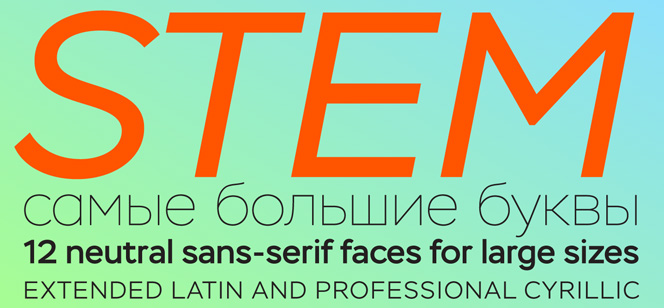
Stem font
Stem font is a contemporary Sans Serif font family characteristic with its distinctive geometrical shapes. There is a very interesting concept behind its creation as it is designed to be a solution to an old problem – the fact that many sans serifs do not look equally good in the large sizes and in a body text. The Stem designers, having carefully analysed the nature of the problem and the reasons behind its existence, offer us a very bold solution – an optical sized Sans Serif. Their plans include the development of three family branches – Display – for large sizes, Text – for prolonged reading and Caption – for the smaller sizes. In this manner, the users will be provided with the perfect typeface for any purpose.
The first part of the family – Stem Display, is specially designed to work in the largest points sizes. As you can imagine, the legibility is great for use in headlines, titles, posters, advertising, inscriptions, etc. Display comes in 12 weights – Stem Hairline, Stem Thin, Stem Extra Light, Stem Light, Stem, Stem Medium, Stem Bold with the last five having there respective true Italics. Many extras are included like stylistic alternates, superiors and inferiors, true small caps, different kinds of digits as well as extensive language support for Latin based languages. There is also a special feature that deserves a special mention – the very carefully and professionally designed Cyrillic glyphs.
Stem font family is a brainchild of a triumvirate of very talented Russian type designers – Alexandra Korolkova, Maria Selezeneva and Isabella Chaeva and is released by one of the most famous East European type foundries – ParaType. We have already seen the marvelous results of the co-operation between Alexandra and Maria (Journal Sans New font) and we are very pleased that the inclusion of another team member has worked greatly too. We are impatiently waiting for the further development of their joint projects!
Designers: Alexandra Korolkova, Maria Selezeneva, Isabella Chaeva
Publisher: ParaType